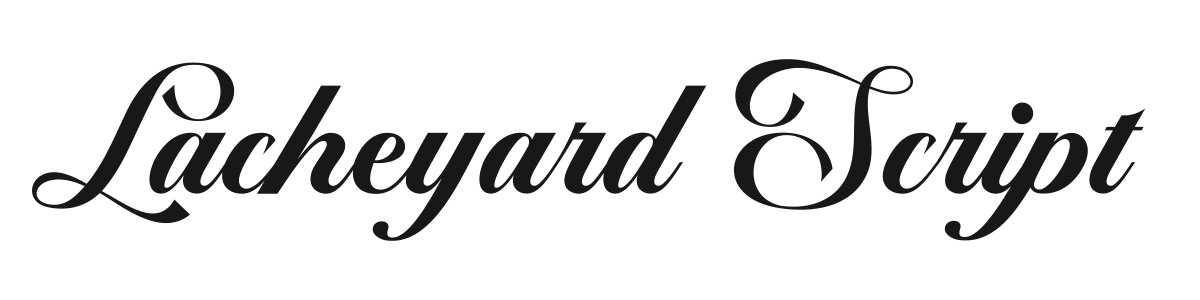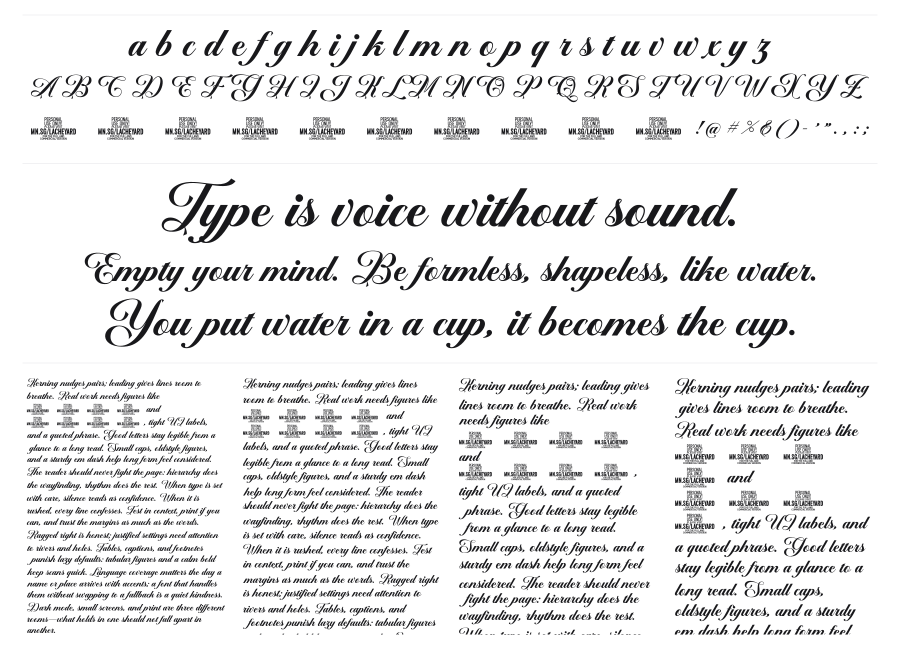
Lacheyard Script
Lacheyard Script is a formal script rooted in 19th-century copperplate penmanship, built around dramatic contrast between heavy downstrokes and wispy hairlines. The uppercase letters carry lavish loops and flourishes while the lowercase maintains an elegant, rhythmic flow. It brings genuine calligraphic authority to wedding stationery, luxury branding, and editorial headline work.